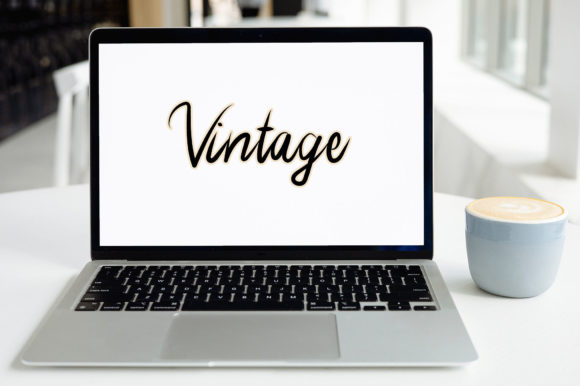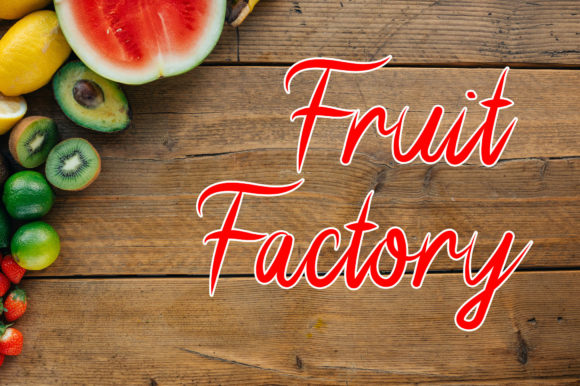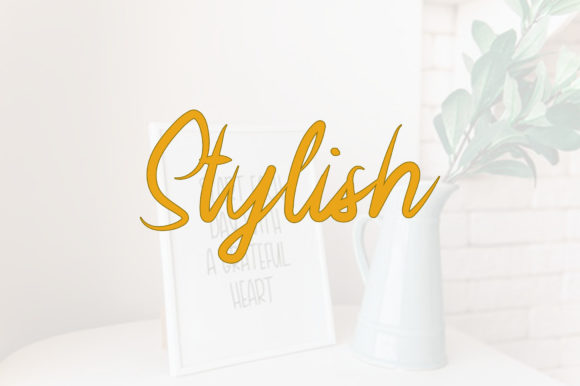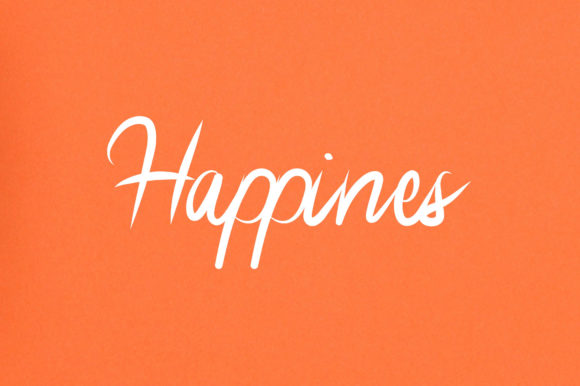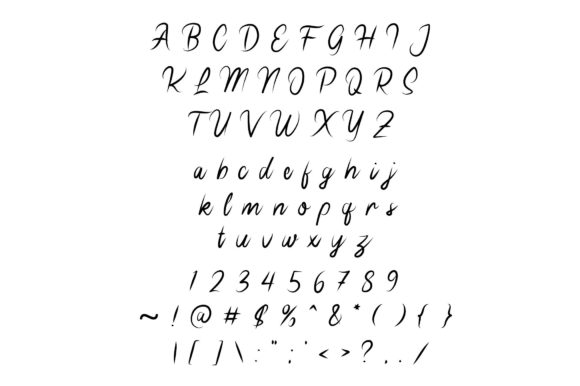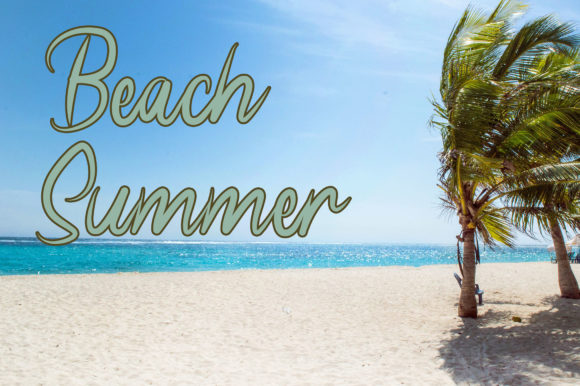
Ramadan Font
About Ramadan Font
Ramadan is a beautiful, well balanced and delicate script font. It is the ideal choice for each of your beautiful Ramadan moments. Fall in love with its incredibly versatile style and use it to create spectacular designs!